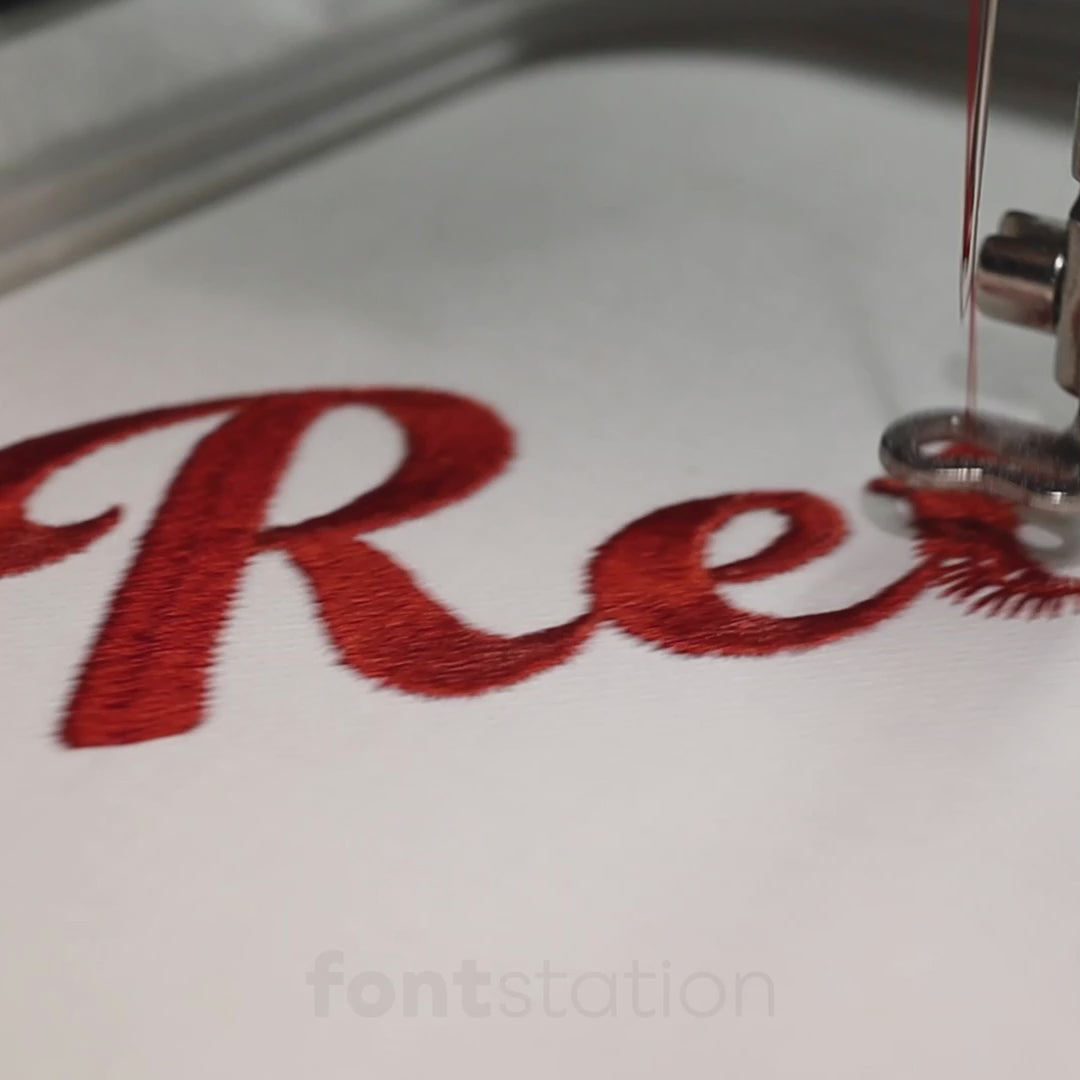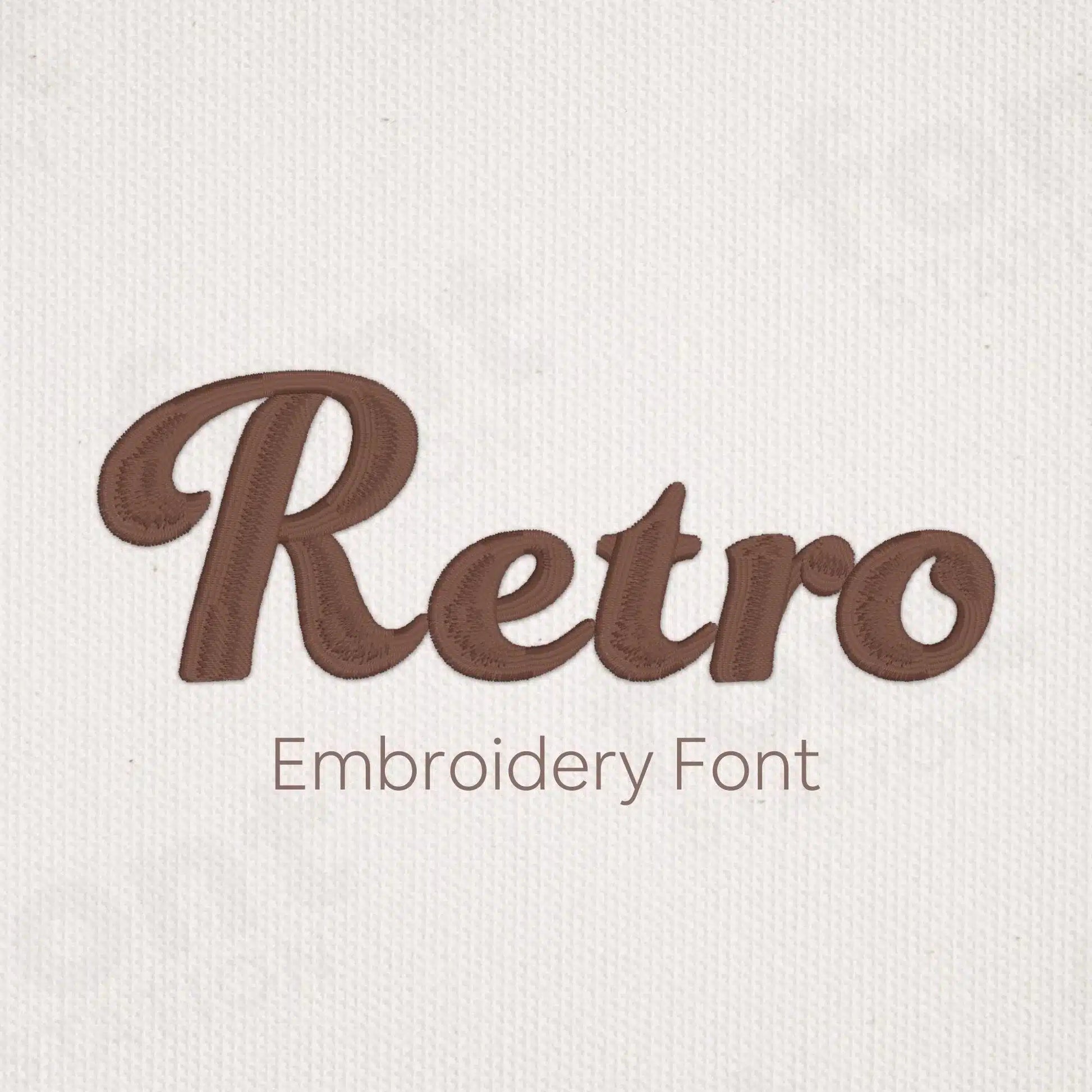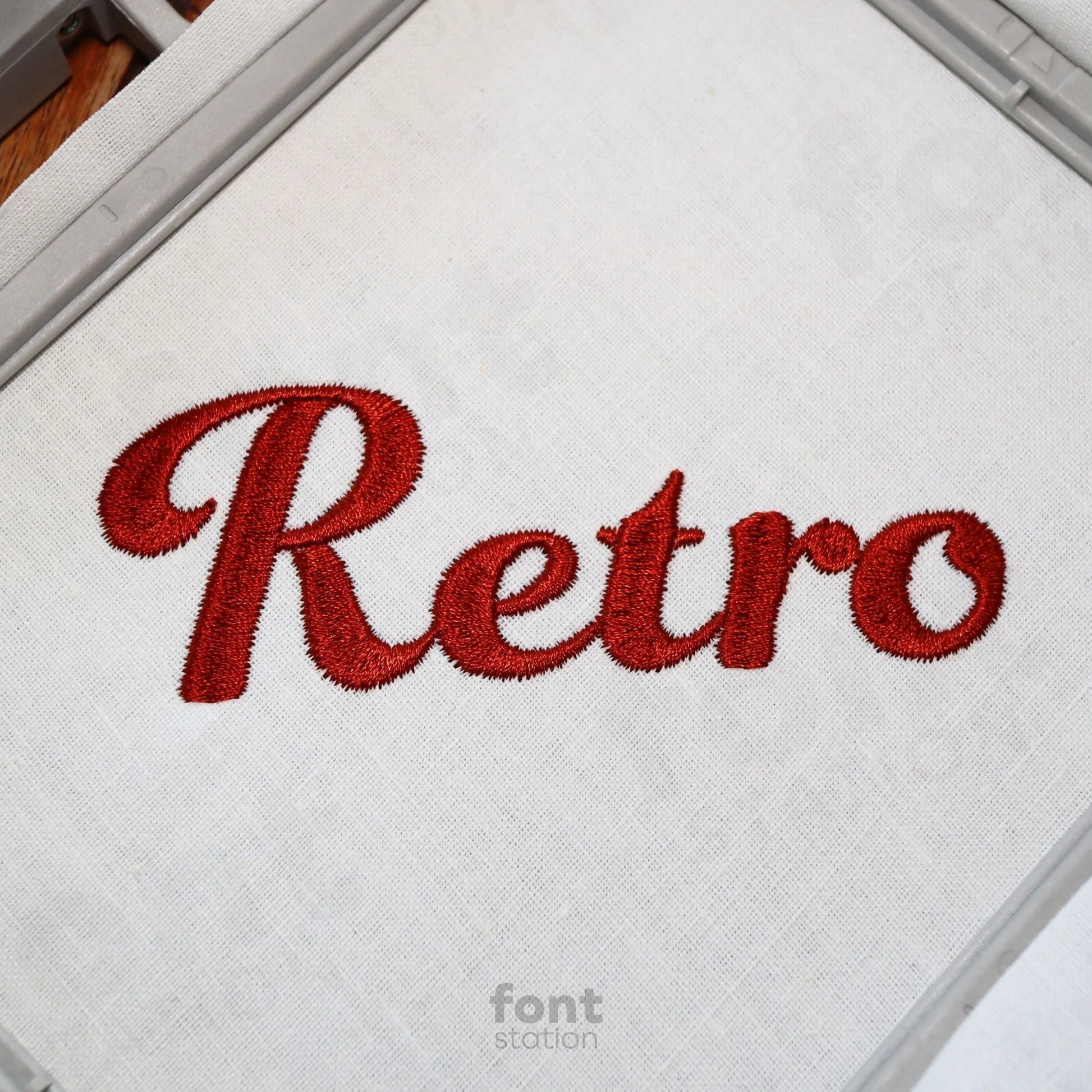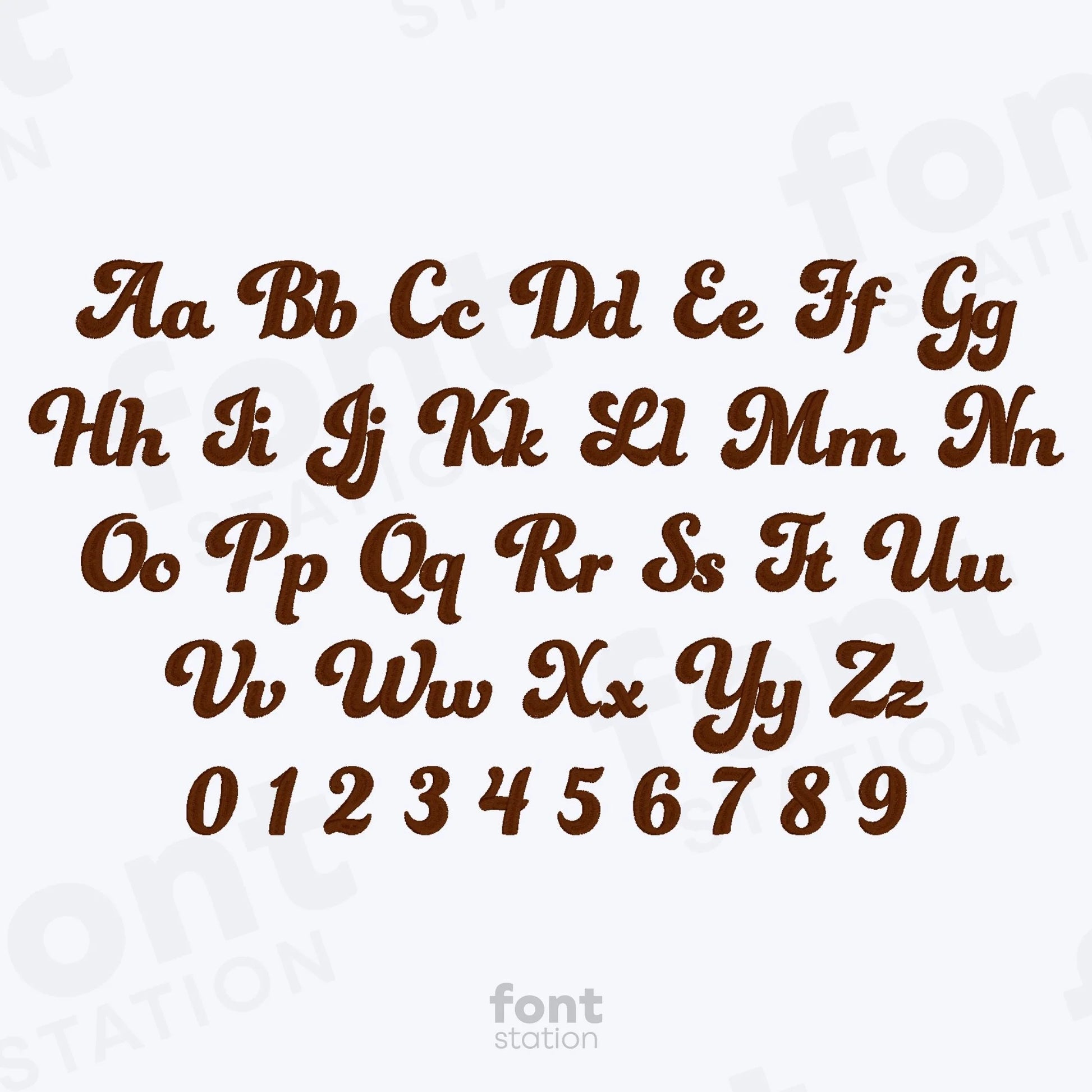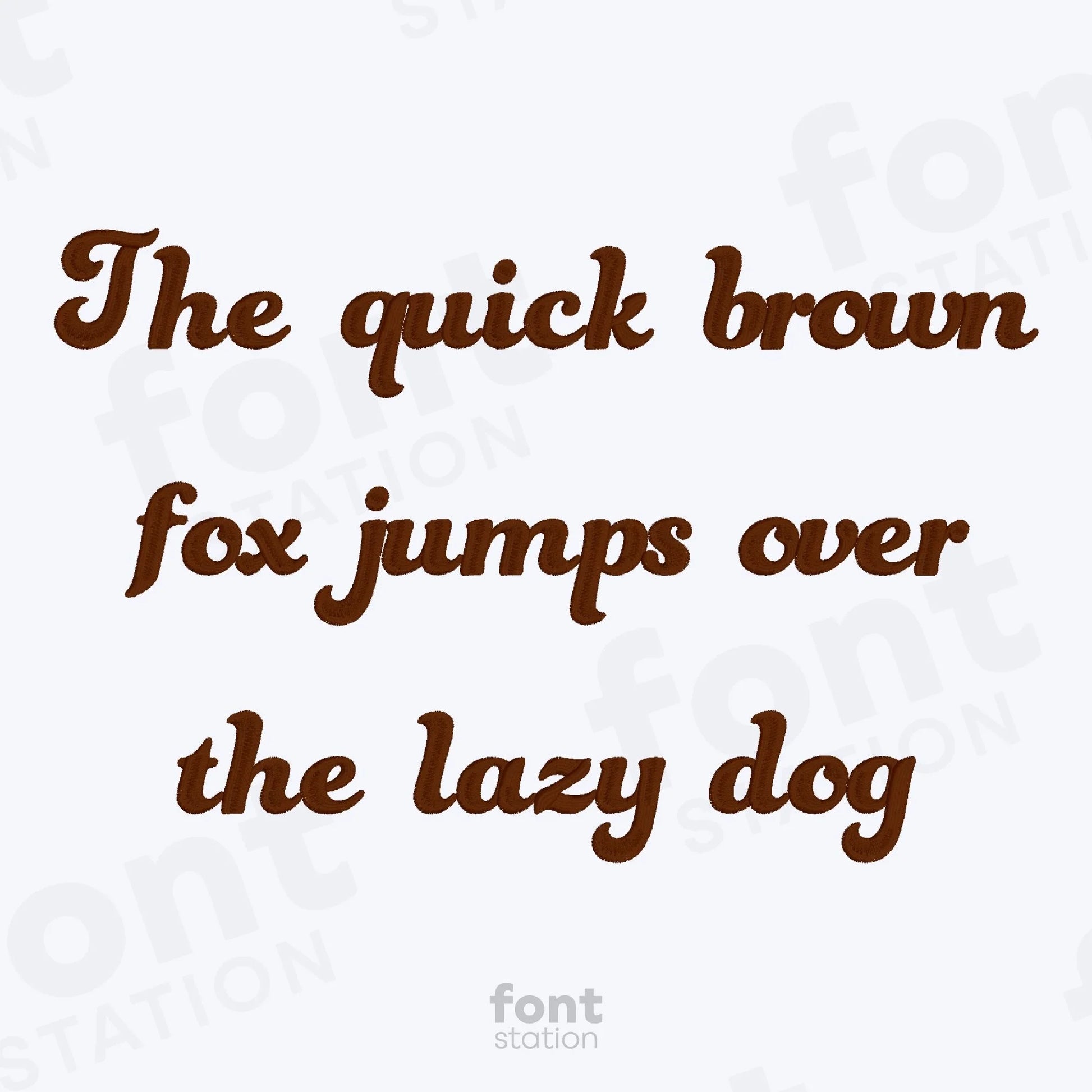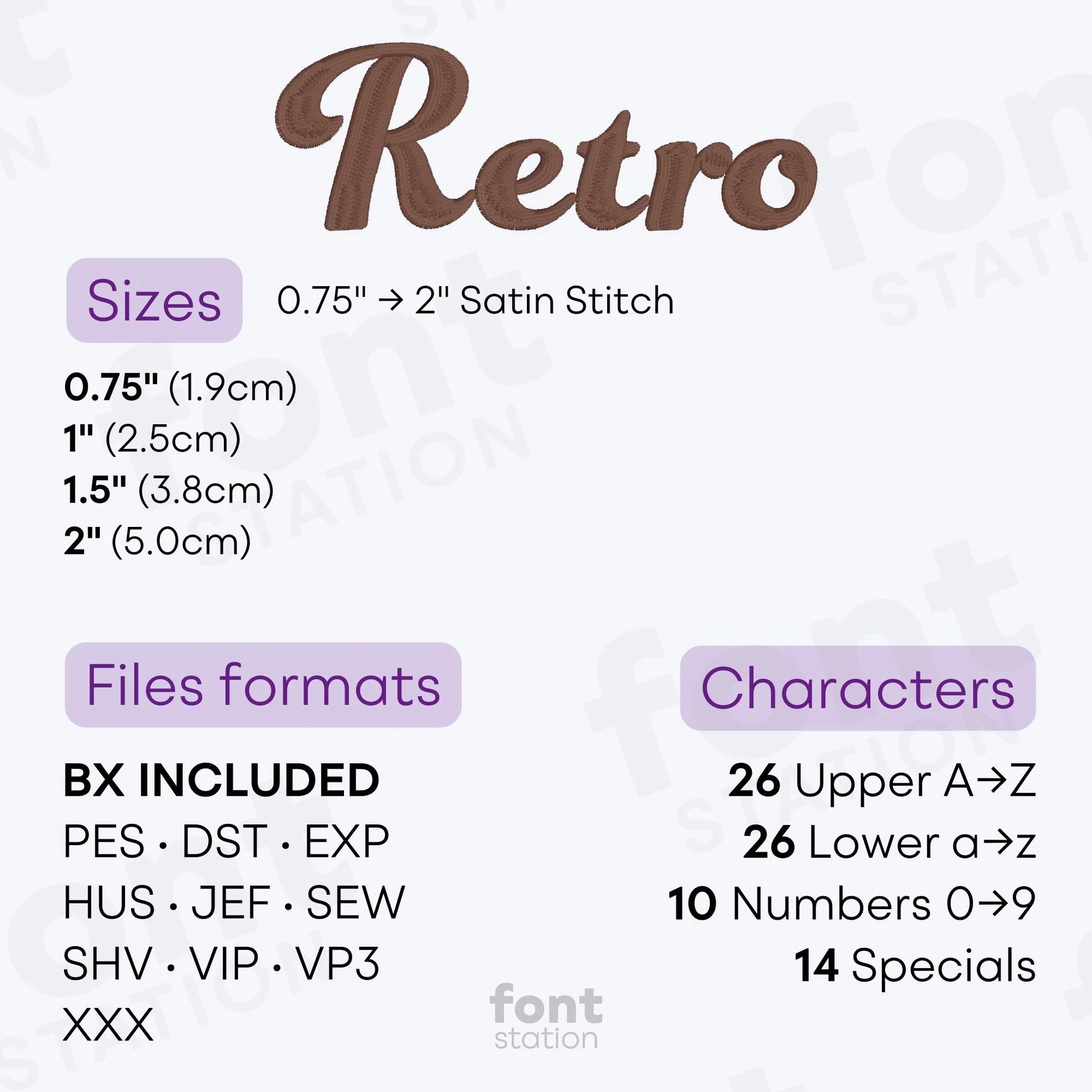
Retro Embroidery Font
Our Retro embroidery font is a vintage-style alphabet crafted for machine embroidery. These bold, nostalgic letters bring timeless charm to every stitched design, ideal for custom creations, signage, and retro-inspired projects.
About the Retro Embroidery Font
Add vintage charm to your projects with our Retro embroidery font!
Give your embroidery projects a nostalgic twist with our Retro embroidery font. This bold, vintage alphabet is professionally digitized for clean, crisp stitching across most fabrics. Ideal for retro logos, classic lettering, and throwback-themed designs, these machine-ready letters deliver timeless style with a fun, old-school vibe.
Why choose our Retro Embroidery Letters?
How to use this Retro Embroidery Alphabet?
Unlimited ways to use our Retro Embroidery Font